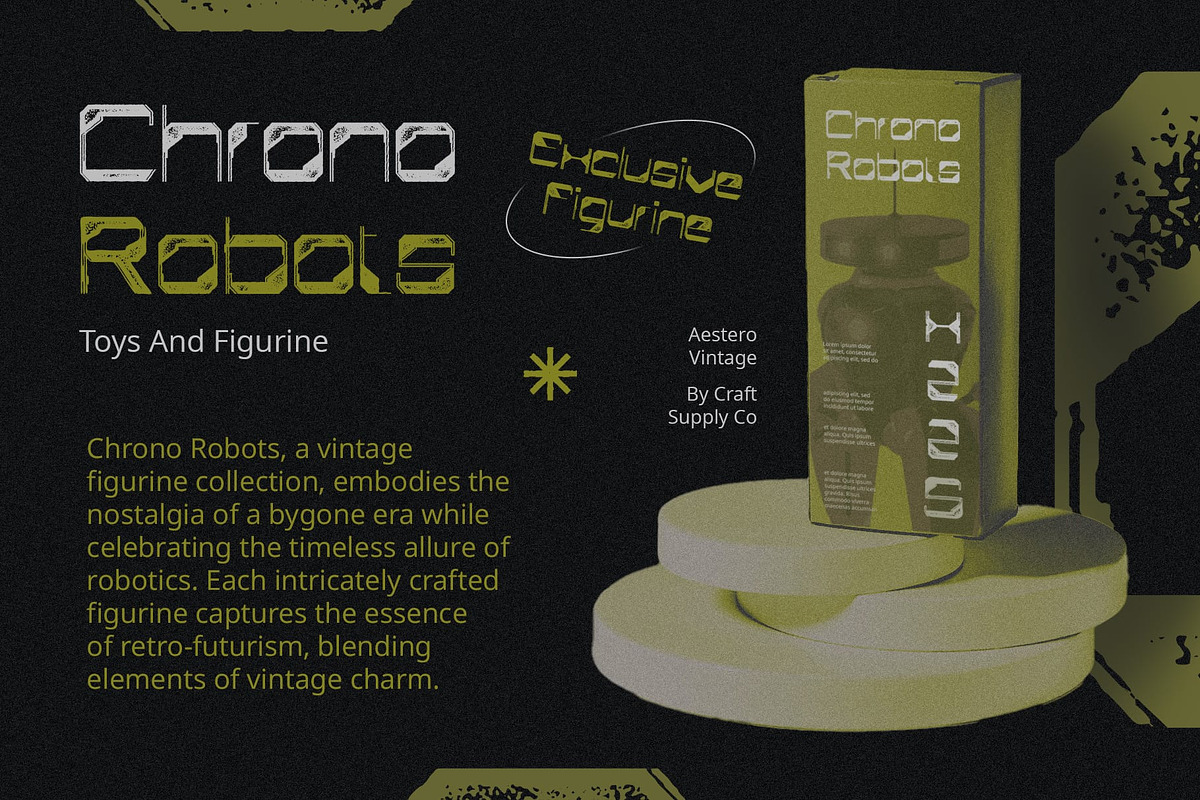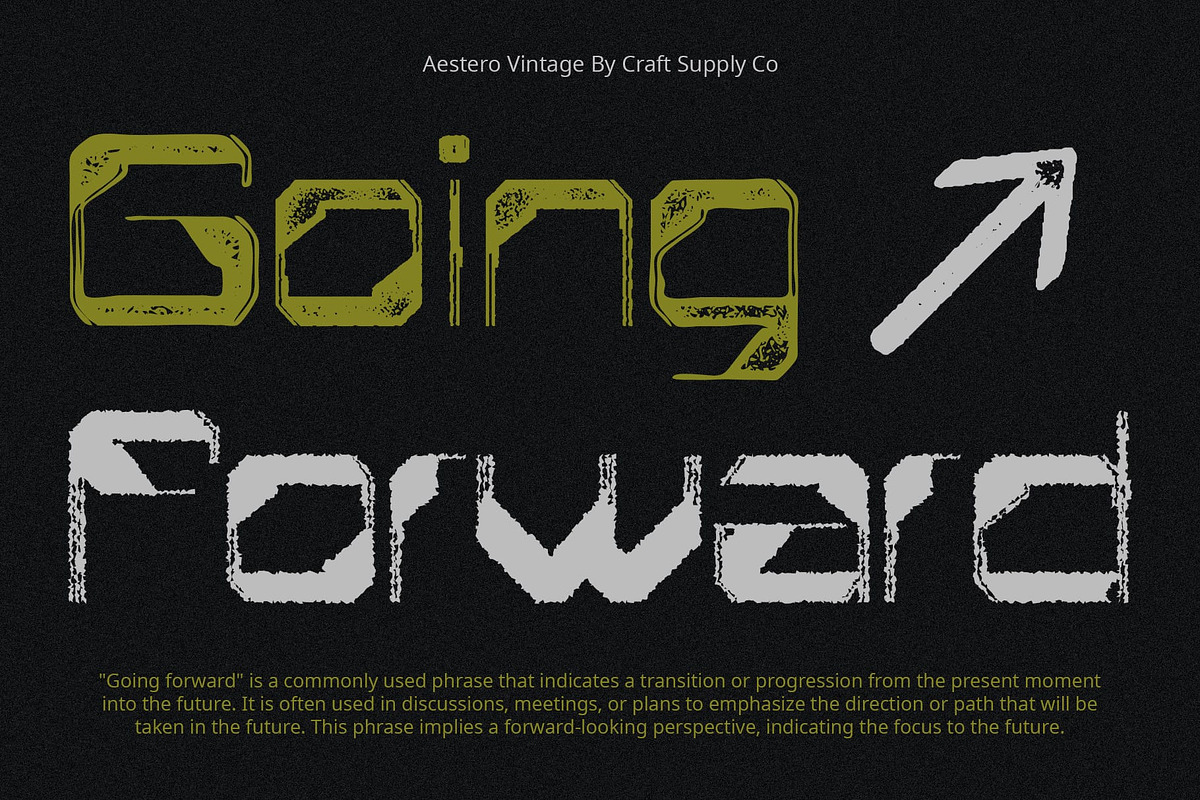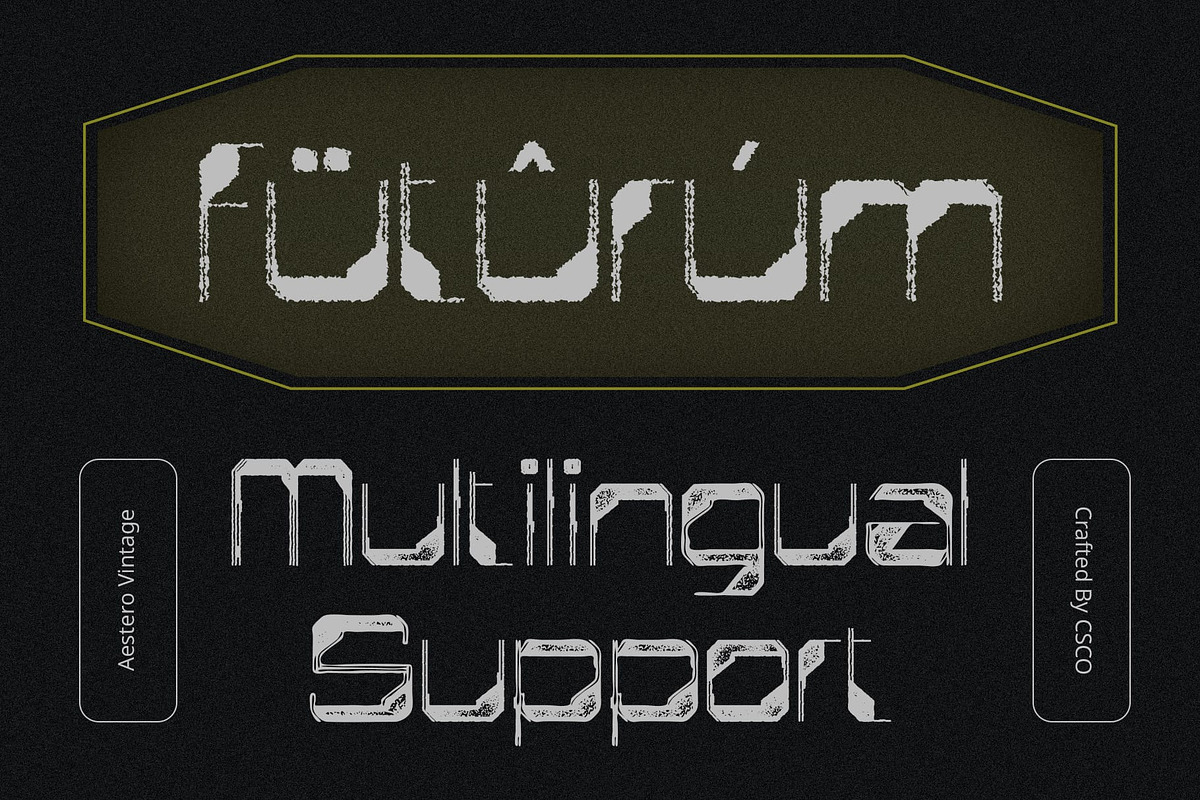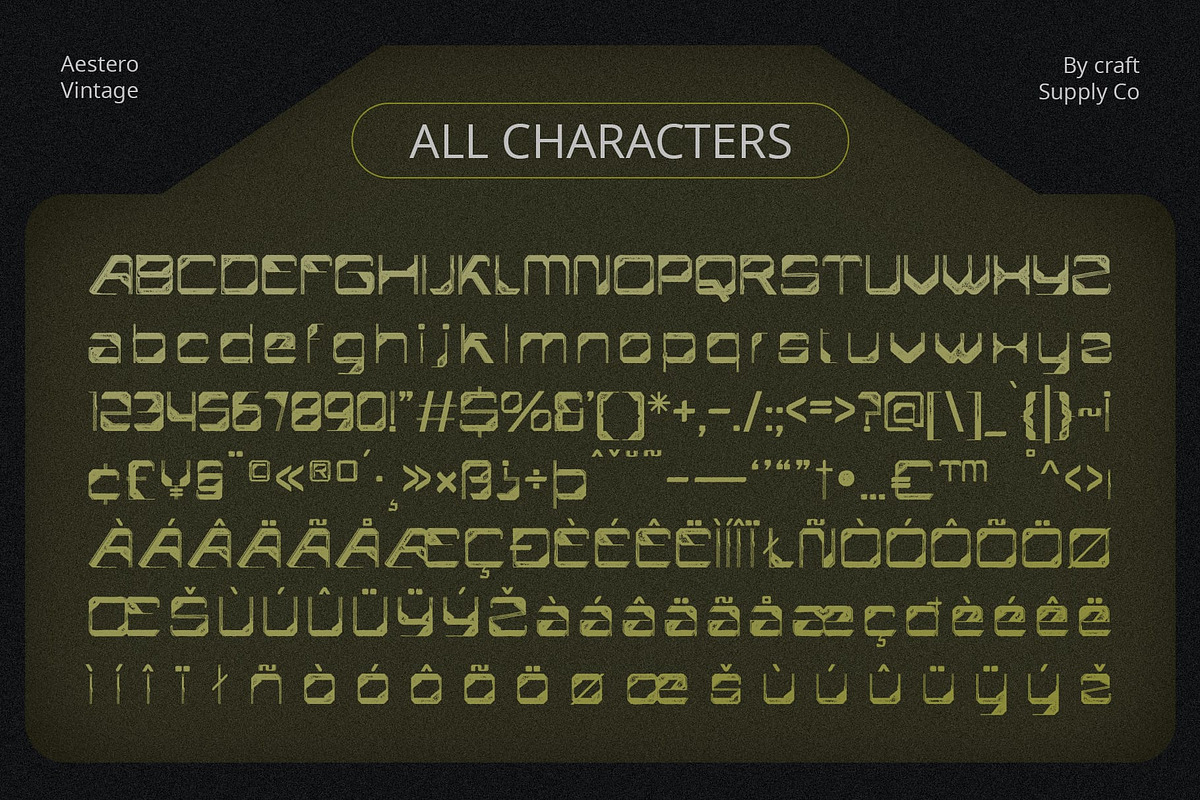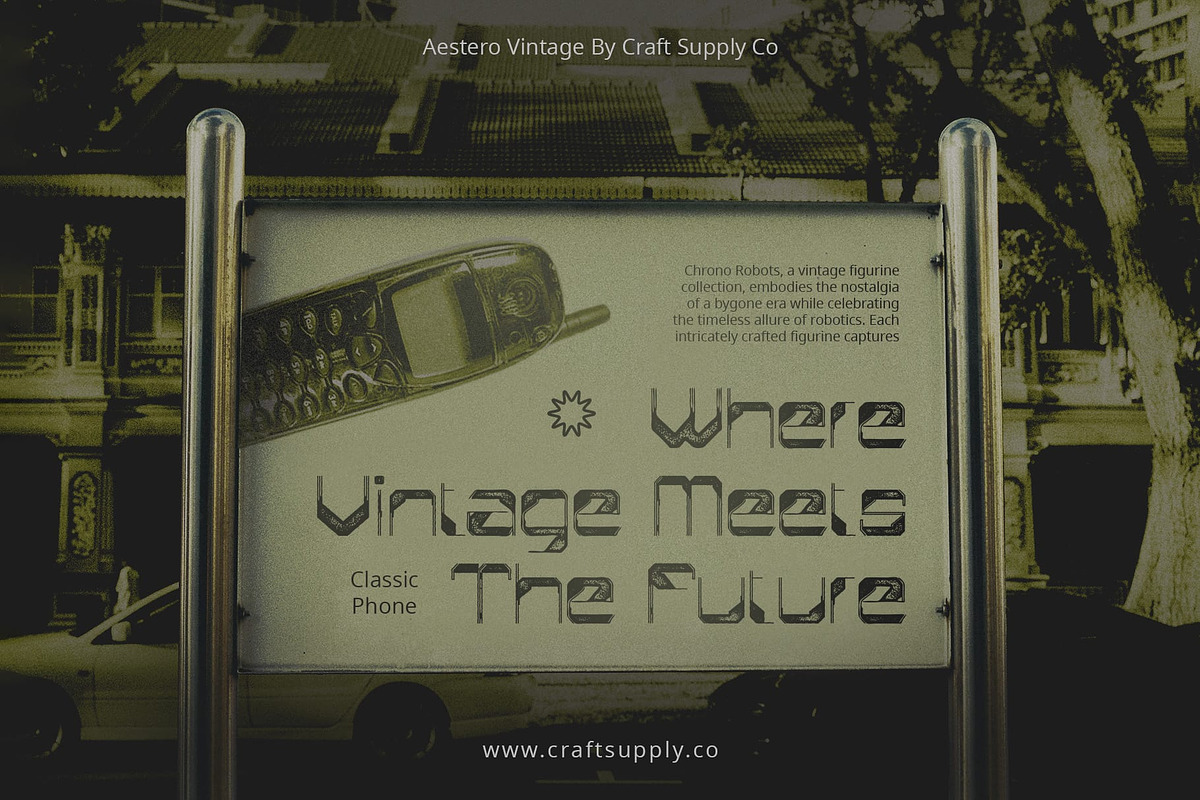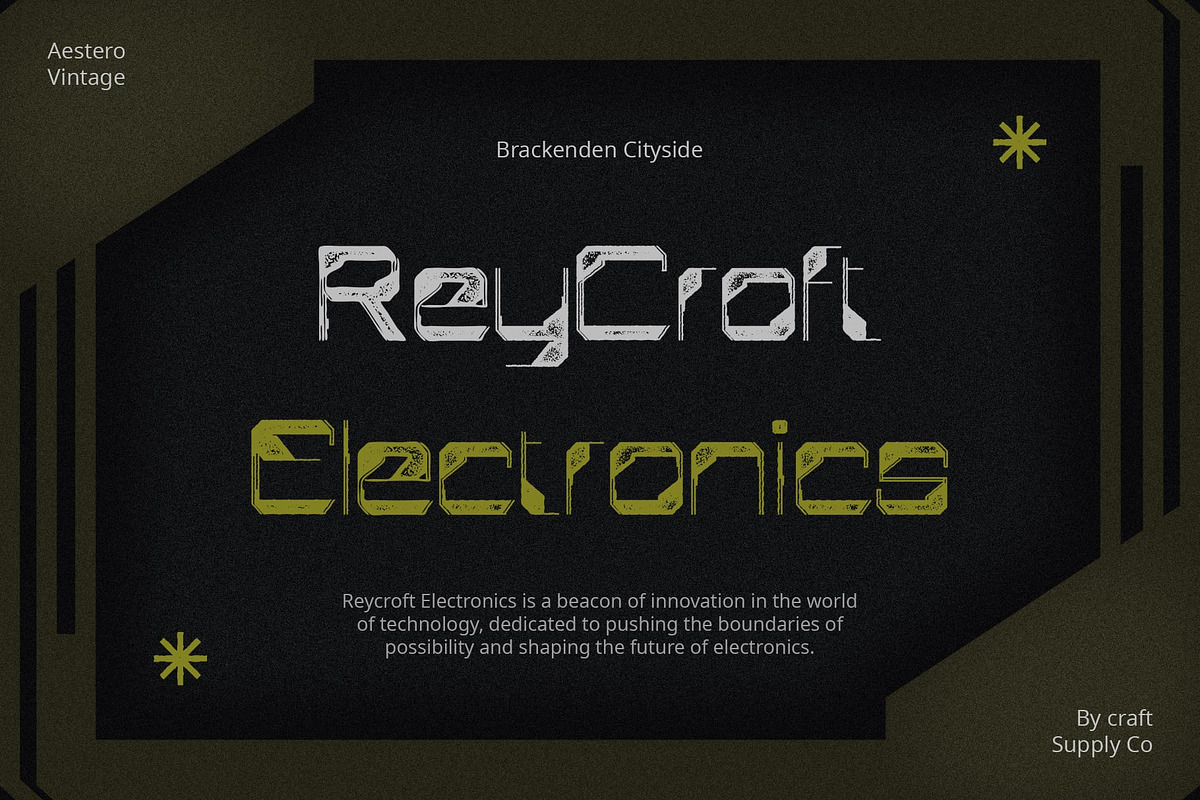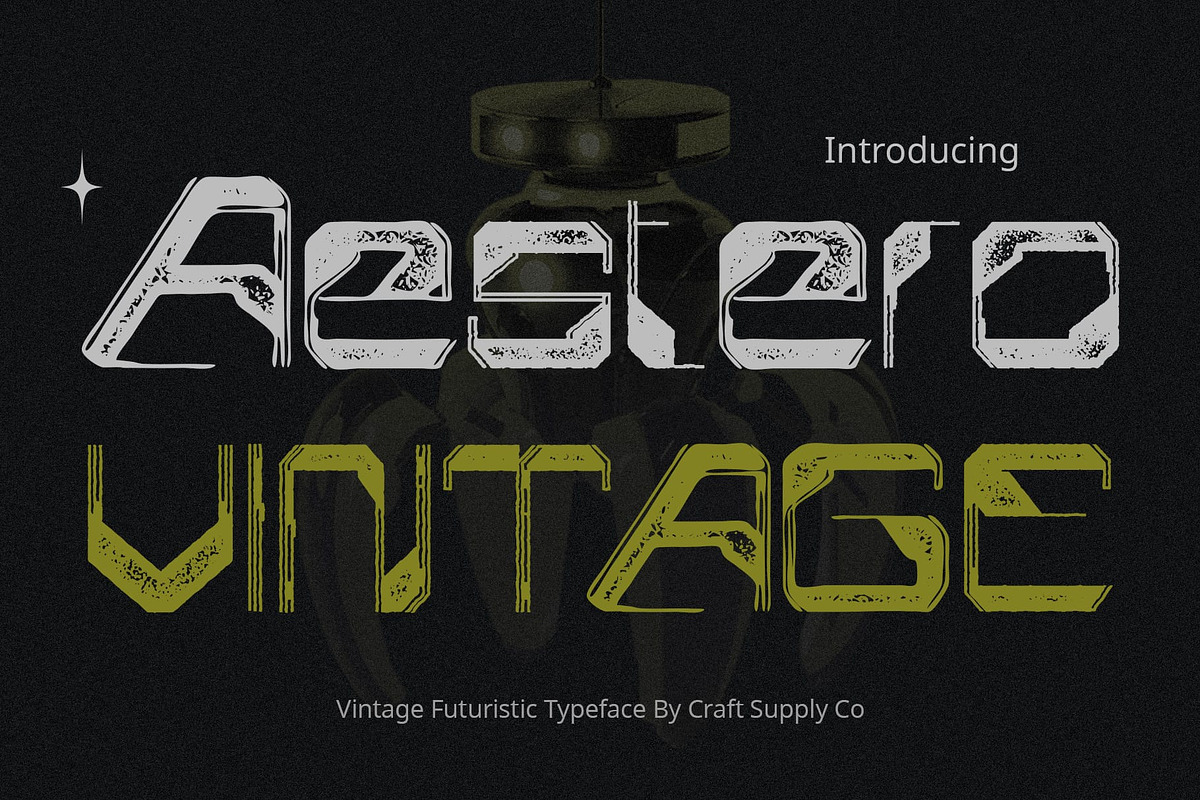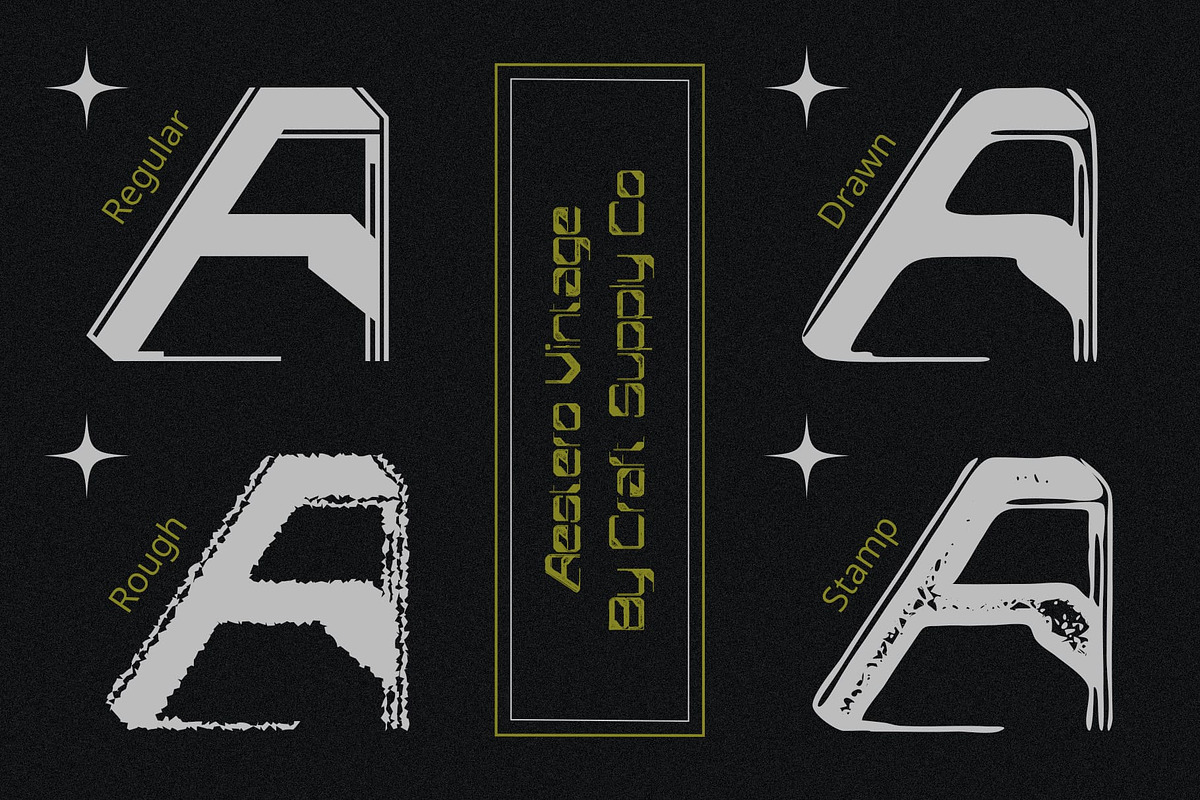
Aestero Vintage
Aestero Vintage: Modern Charm with a Vintage Twist
Modern Display Design Aestero Vintage boasts a sleek and contemporary display design that captures attention effortlessly. Its clean lines and stylish curves exude modernity and sophistication.
Transformed into Vintage This font undergoes a transformation into vintage territory, adding a nostalgic touch to its modern aesthetic. The infusion of retro elements gives it a timeless appeal that resonates with vintage enthusiasts.
Rough Stamp Drawn Effect With the rough stamp drawn effect, This font acquires a weathered and textured appearance reminiscent of old-fashioned letterpress printing. This effect enhances its vintage charm and adds depth to its visual appeal.
Ideal for Display Purposes This font is tailor-made for display purposes, where it shines brightest. Whether used in headlines, logos, posters, or branding materials, its vintage-inspired design lends an air of authenticity and character to any project.
Blend of Modernity and Nostalgia This font combines the sleekness of modern design with the timeless charm of vintage aesthetics. Its rough stamp drawn effect adds a layer of authenticity, making it an ideal choice for designers seeking to evoke nostalgia and sophistication in their projects.
- Aestero Regular
- Aestero Drawn
- Aestero Rough
- Aestero Stamp